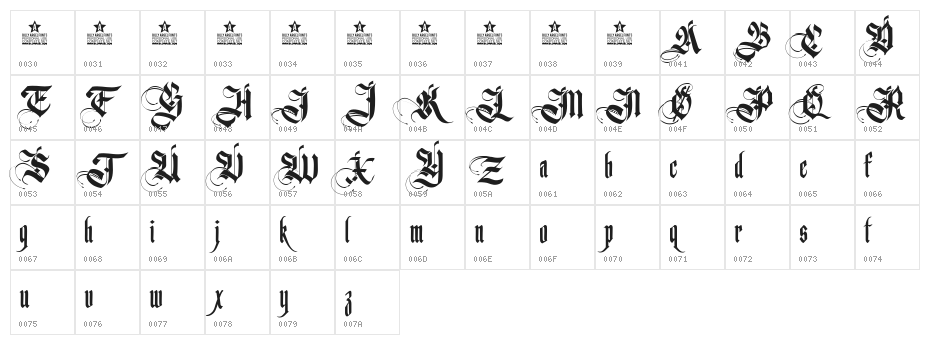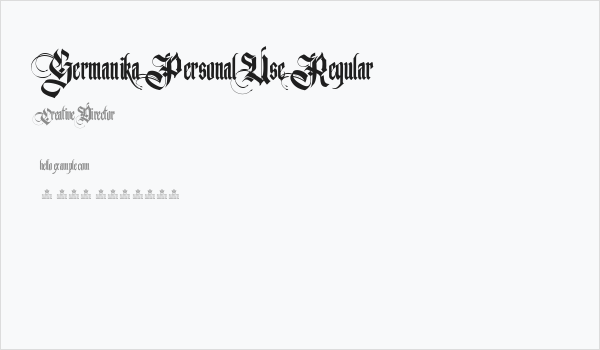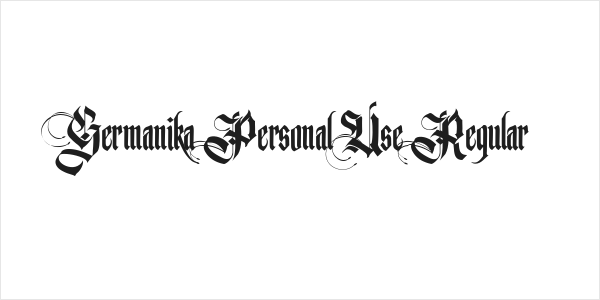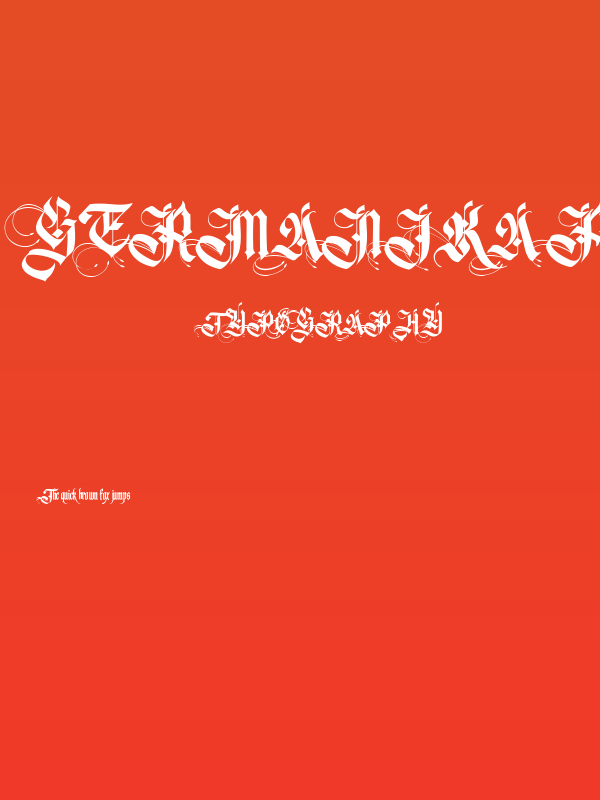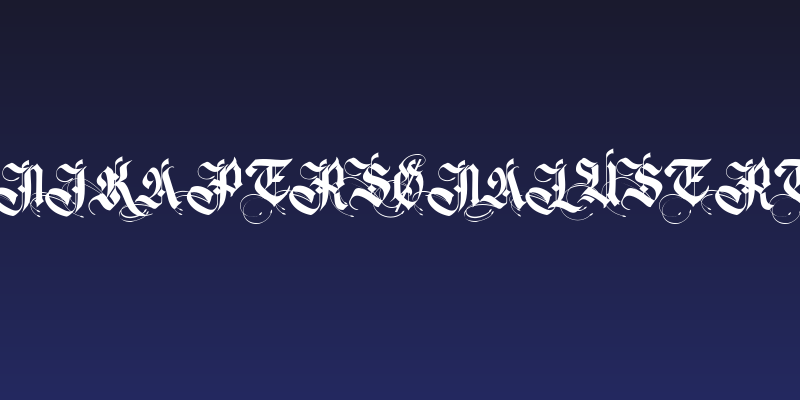
Germanika Personal Use Regular Font
Germanika Personal Use Regular Description
This font features a striking and intricate design reminiscent of traditional blackletter styles. The uppercase letters are adorned with elaborate flourishes and sharp angles, creating a sense of elegance and historical depth. The lowercase letters maintain a consistent style, with bold strokes and a slightly condensed form, enhancing readability while preserving the ornate aesthetic. The numbers and special characters are crafted with the same attention to detail, ensuring a cohesive look across all text elements. This font is ideal for projects that require a touch of vintage sophistication and a nod to historical typography.